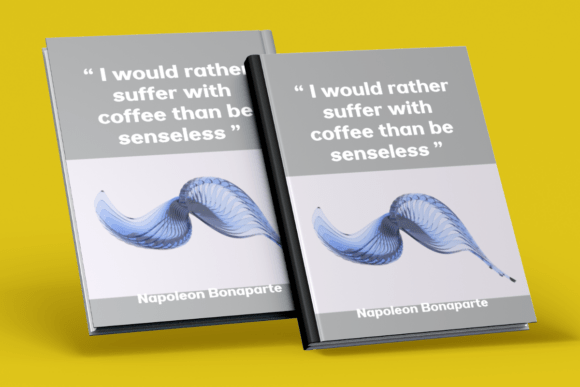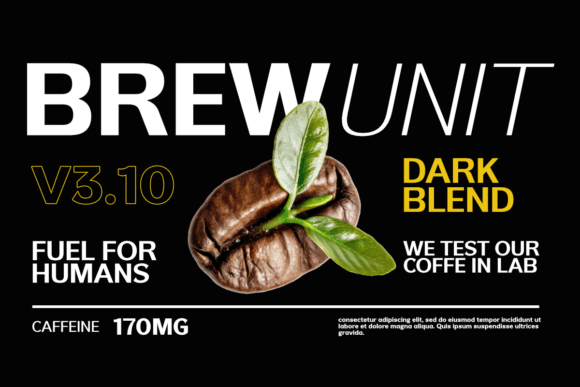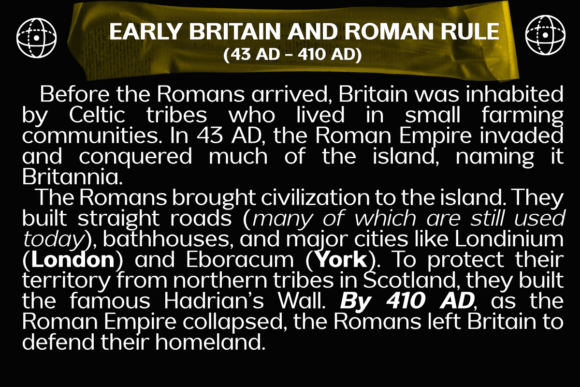
Introduction to Reang Lanira Font
Command the digital landscape with Reang Lanira, a powerhouse modern sans serif family engineered for high-performance visual communication.
This typeface strikes a perfect balance between geometric precision and industrial strength, featuring clean, wide apertures and a robust x-height that ensures legendary legibility across all platforms With a massive collection of 32 styles—including versatile Regular and striking Outline versions—this family is an extraordinary choice for corporate branding, tech-focused UI/UX design, high-impact editorial headers, and contemporary architectural signage.